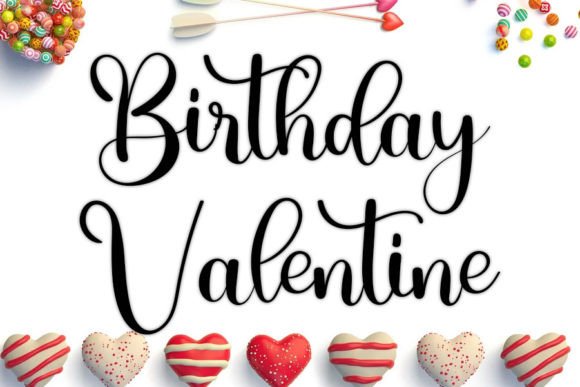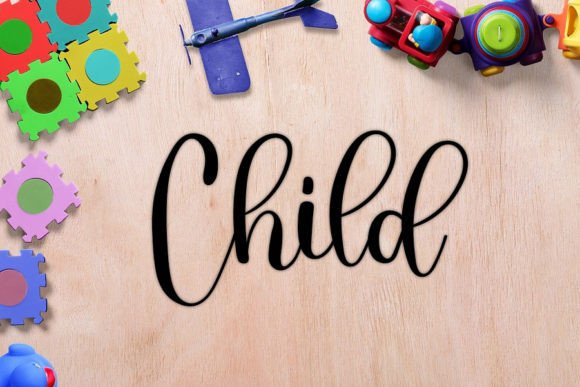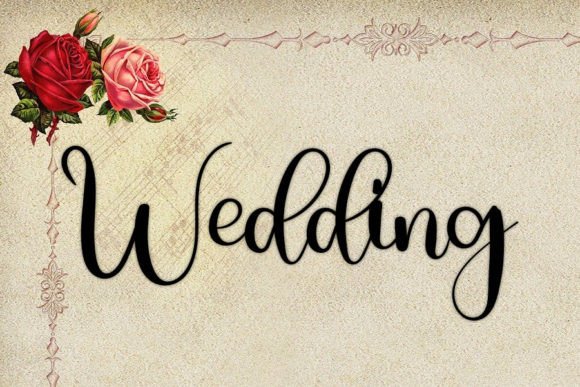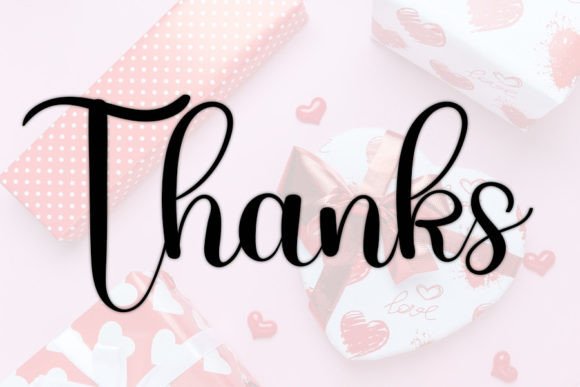
Introducing the Ultimate Birthday Font for Your Design Needs
Are you tired of using the same old fonts for your designs? Look no further! The Birthday Font is here to revolutionize your creative projects with its fresh and beautiful style. This versatile font is perfect for a wide range of design purposes, including YouTube banners, cover logo mockups, wedding invitations, ID cards, flyers, and crafts.
What Makes the Birthday Font So Special?
The Birthday Font is a game-changer for designers and crafters alike. Its unique and simple design makes it stand out from the crowd, adding a touch of elegance and sophistication to any project. Whether you’re working on a personal or professional project, this font is sure to impress.
Key Features of the Birthday Font
- Fresh and Beautiful Design: The Birthday Font boasts a modern and stylish design that’s perfect for creating visually stunning projects.
- Versatile: This font is suitable for a wide range of design purposes, from digital projects like YouTube banners to print materials like wedding invitations and ID cards.
- Simple and Unique: The Birthday Font’s simple yet unique design makes it easy to read and recognize, adding a touch of personality to your projects.
How the Birthday Font Can Elevate Your Designs
By incorporating the Birthday Font into your designs, you can take your projects to the next level. Here are just a few ways this font can benefit your work:
Enhance Your Brand’s Visual Identity
If you’re a business owner or marketer, you know how important it is to have a consistent visual brand identity. The Birthday Font can help you achieve this by providing a unique and recognizable typography that reflects your brand’s personality.
Stand Out in a Crowded Market
With the Birthday Font, you can create designs that stand out from the competition. Its fresh and beautiful design ensures that your projects will grab attention and leave a lasting impression on your audience.
Perfect for Crafters and DIY Enthusiasts
If you’re a crafter or DIY enthusiast, the Birthday Font is a great addition to your design toolkit. Use it to create personalized gifts, decorations, and other handmade items that showcase your creativity and style.
Tips for Using the Birthday Font Effectively
To get the most out of the Birthday Font, here are some tips to keep in mind:
Pair it with Other Fonts
Experiment with pairing the Birthday Font with other fonts to create a unique and visually appealing typography combination.
Use it Consistently
To create a cohesive brand identity, use the Birthday Font consistently across all your designs and marketing materials.
Experiment with Different Sizes and Colors
Don’t be afraid to experiment with different sizes and colors of the Birthday Font to add visual interest and emphasis to your designs.
In conclusion, the Birthday Font is a versatile and beautiful font that’s perfect for designers, crafters, and DIY enthusiasts. Its fresh and unique design makes it an excellent choice for a wide range of design purposes, from digital projects to print materials. By incorporating the Birthday Font into your designs, you can elevate your brand’s visual identity, stand out in a crowded market, and create stunning projects that showcase your creativity and style.